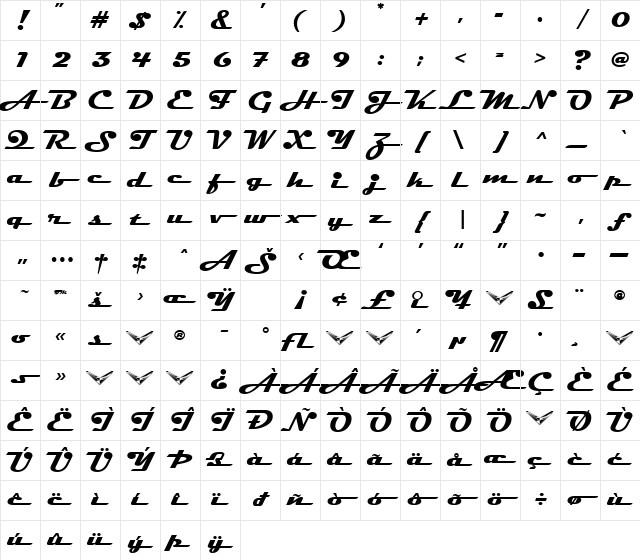
Magneto BoldExtended
Style: BoldExtended
Magneto Family
Design Context for Magneto
Magneto is a composed and adaptable typeface that performs quietly and consistently across a wide range of design contexts. Its bold stroke weight gives it real presence on the page.